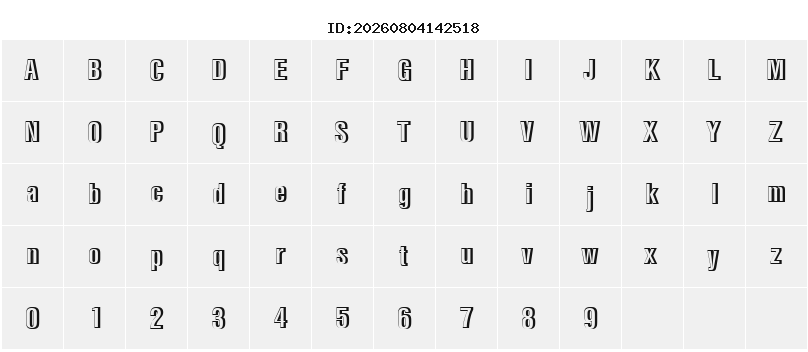
NimbusSanTBolConRe1 Preview
• Font Name: NimbusSanTBolConRe1
• Font ID: URW:NimbusSanT-BoldCondRe1:1993
• Full Font Name: NimbusSanTBolConRe1
• PostScript Name: NimbusSanT-BoldCondRe1
About NimbusSanTBolConRe1.ttf
NimbusSanTBolConRe1.ttf is a modern, elegant sans-serif font designed for ultimate readability and visual harmony. Perfect for branding, headlines, web design, and print materials.